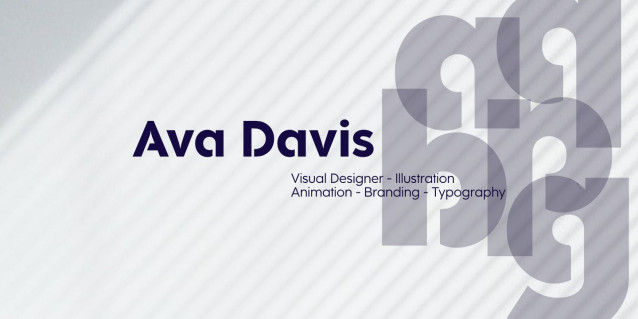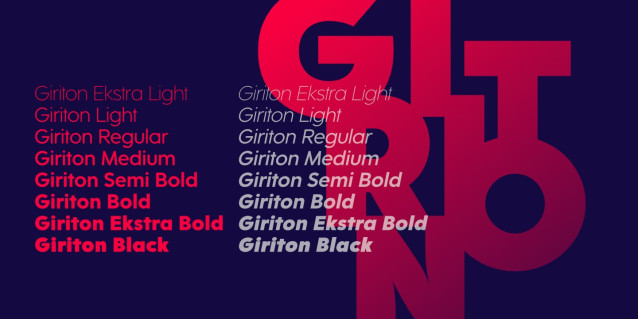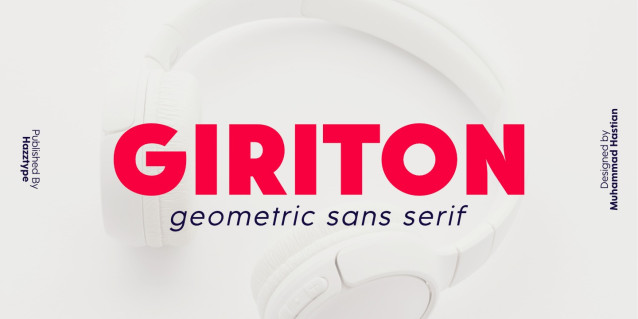
Giriton Font
Giritron Font is a modern geometric sans-serif typeface that effortlessly blends elegance with a contemporary aesthetic. With its precise, angular forms and minimalist design, Giritron offers a perfect balance between readability and visual impact. Giritron is the perfect choice for contemporary branding, editorial layouts, websites, and any design project where a sophisticated, modern look is desired. Its geometric sans-serif nature ensures a timeless quality, while its attention to detail sets it apart as a distinctive and visually pleasing typeface.